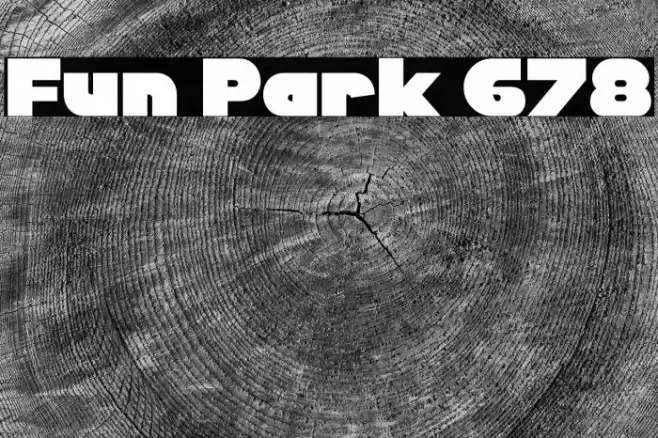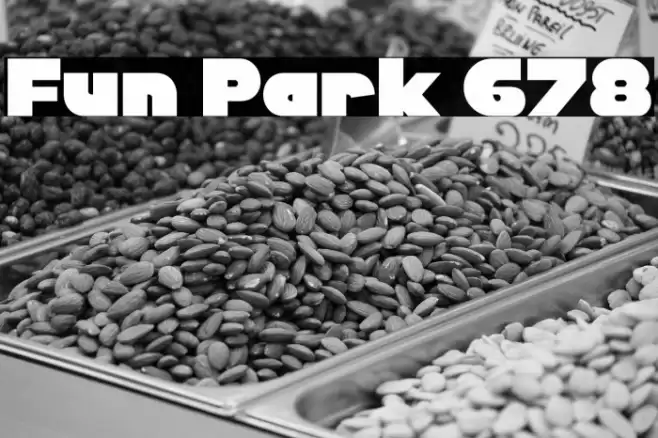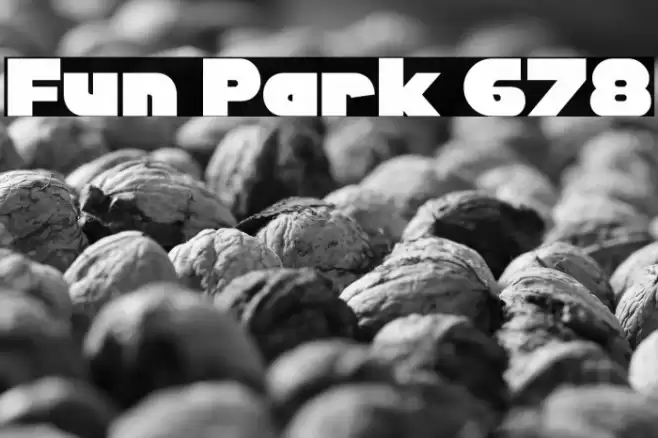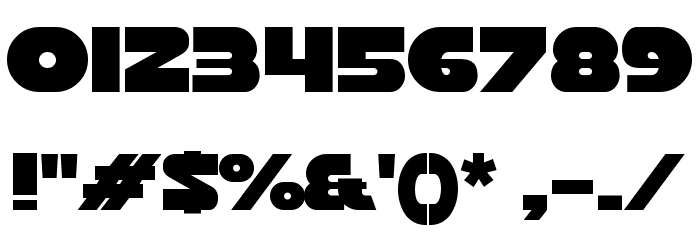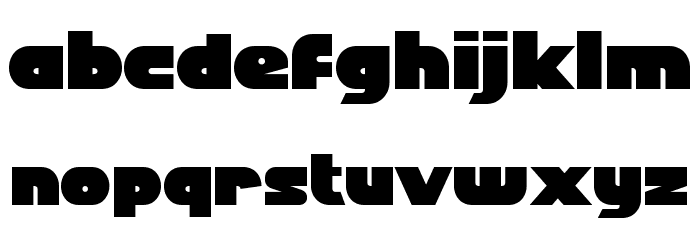
Fun Park 678 Font
Fun Park 678 Description
This font features bold, geometric shapes with a playful and modern aesthetic. The characters are wide and have a strong presence, making them ideal for attention-grabbing designs. The uppercase and lowercase letters maintain a consistent style, with rounded edges and a uniform thickness that adds to the font's cohesive look. The numbers and special characters follow the same design principles, ensuring a harmonious appearance across all elements. This font is perfect for projects that require a fun and dynamic vibe, such as posters, advertisements, or branding materials.
A bold, geometric font with a playful and modern style from Uncategorized fonts.
- Proposed Projects: Ideal for posters, advertisements, branding, and any project needing a fun, dynamic vibe.